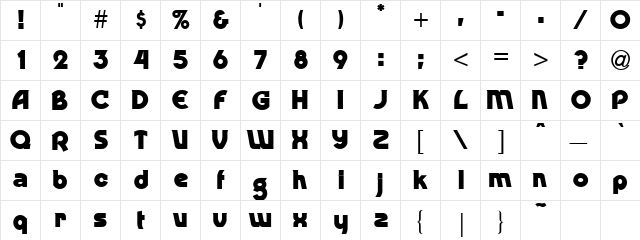
Horn Normal
Design Context for Horn Typeface
Horn is a composed and adaptable typeface that performs quietly and consistently across a wide range of design contexts.